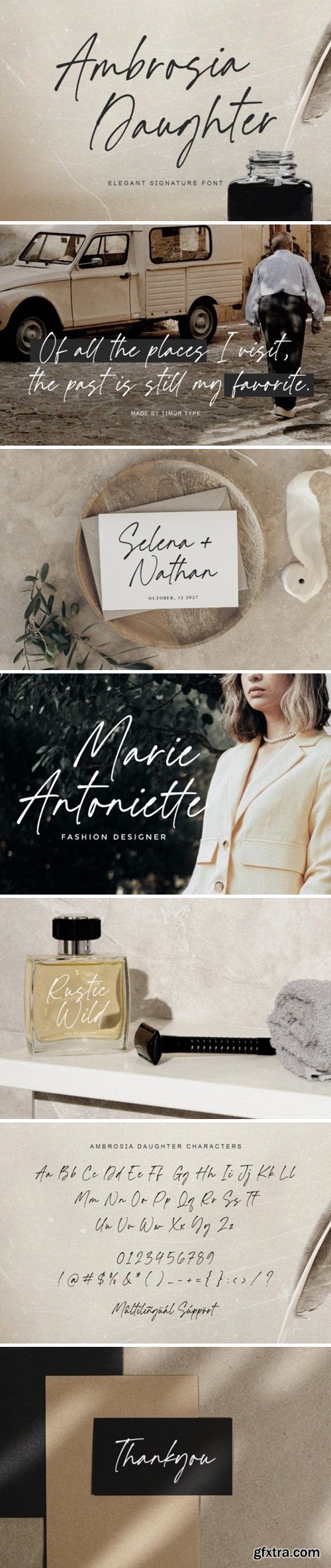
Ambrosia Daughter is a sweet and cursive handwritten font. This gentle font will look gorgeous on a variety of design ideas. It will add a joyful and romantic touch to each of your projects!